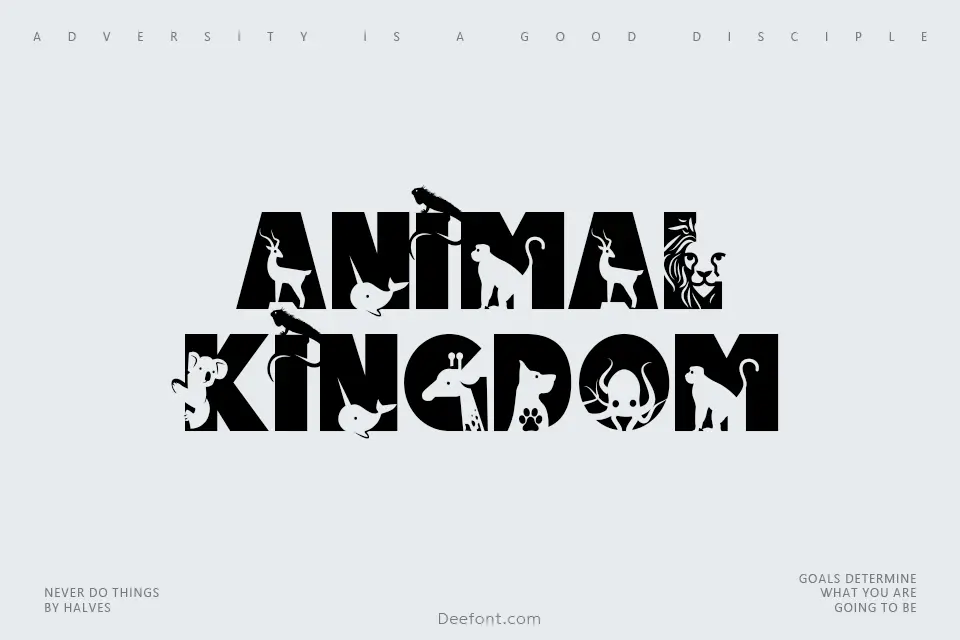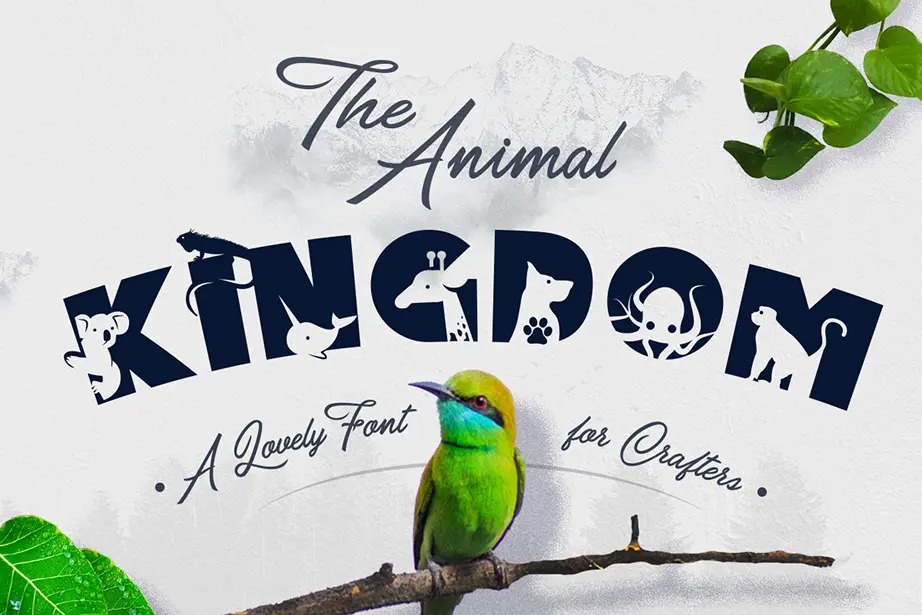
Animal Kingdom Font
Animal Kingdom is a playful and whimsical decorative display font featuring animal silhouettes cleverly integrated within each letter. Designed with imaginative details, this font incorporates various animal shapes like elephants, flamingos, and cats into its letterforms, creating bold and eye-catching characters. Perfect for children’s books, educational materials, zoo-themed posters, playful branding, and creative projects that require a fun and engaging visual touch. The font’s intricate design and distinctive style make it an excellent choice for headlines, logos, and themed design work.
Designed by:Anastasia Feya